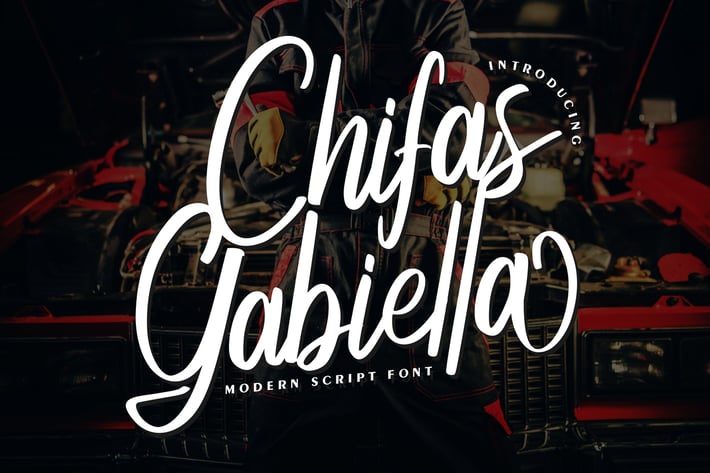
Chifas Gabiella | Modern Script Font
Chifas Gabiella | Modern Script Font with a calligraphy style, So beautiful on invitation like greeting cards, branding materials, business cards, quotes, posters, and more!